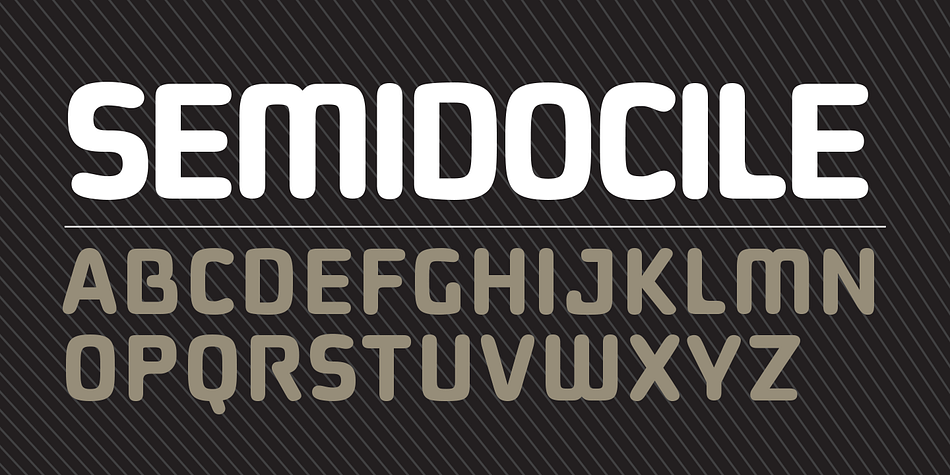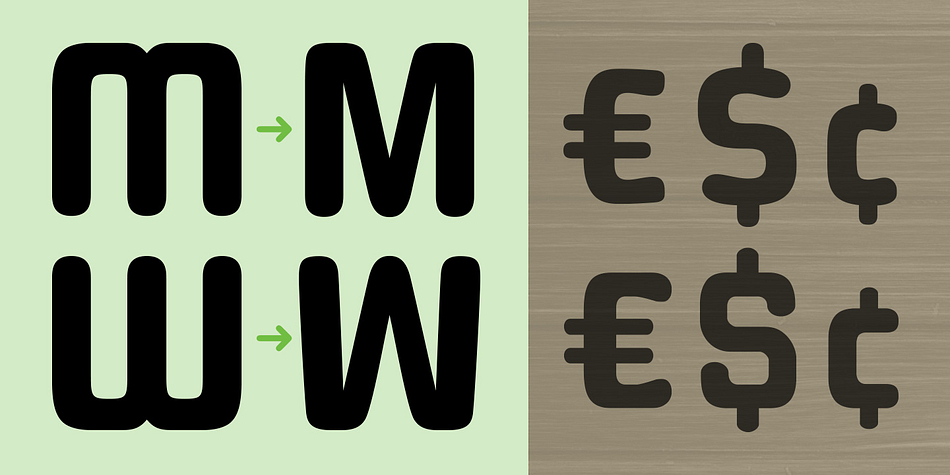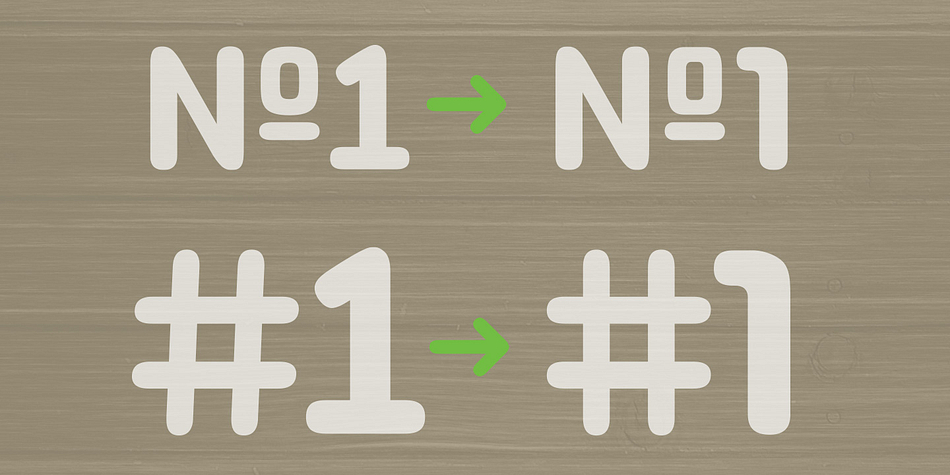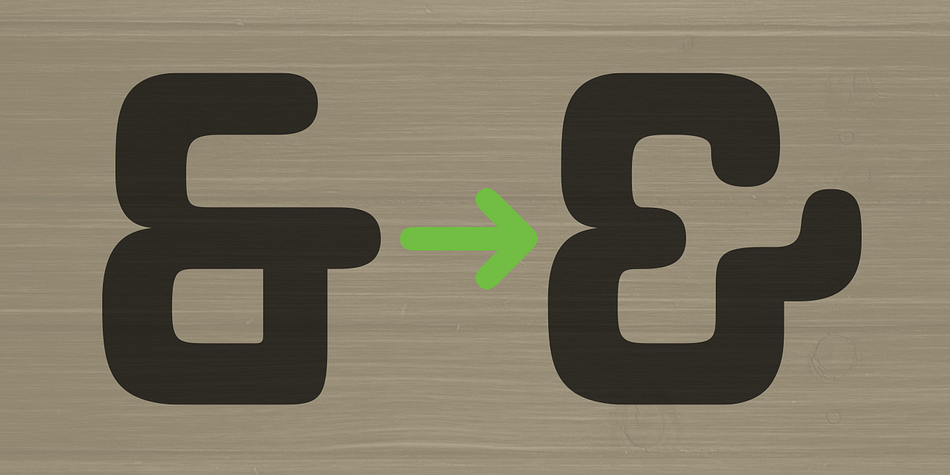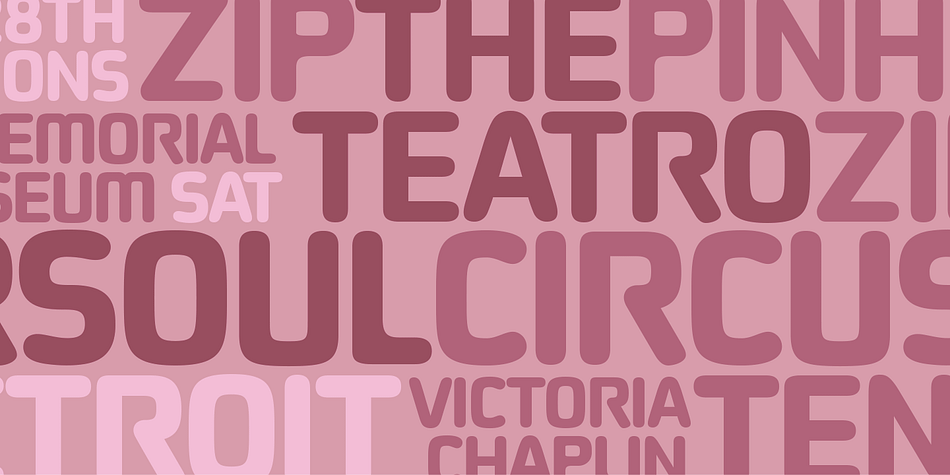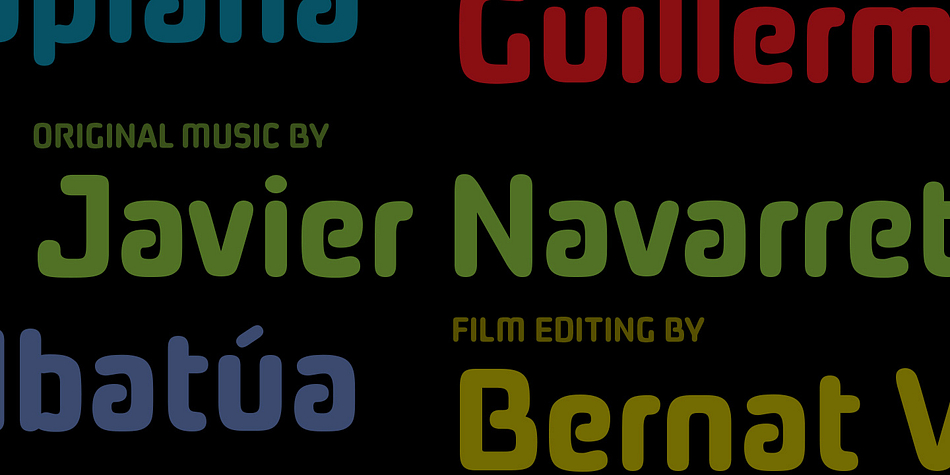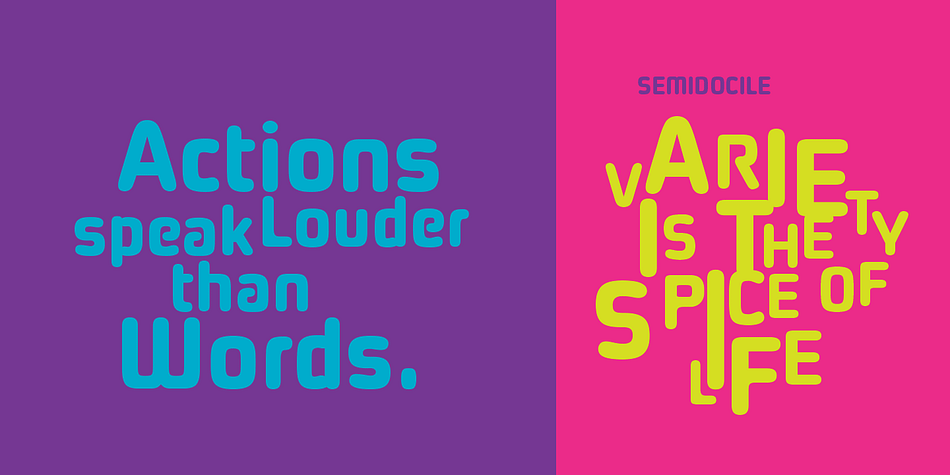
Designed by John Merrifield, Semidocile is a sans serif and display sans font published by Stiff Upper Glyph.
Typepface Design Studio Stiff Upper Glyph is happy to introduce Semidocile, designed by John Merrifield. This new font is very unique, modern, and it’s of impeccable quality. The letter-spacing is of exceptional quality, because it’s been kerned meticulously and makes use of very sophisticated kerning technology. It supports most Latin and Western European Languages, and users have a large number of assorted symbols to choose from. It features over 1400 glyphs. To learn more, visit http://www.stiffupperglyph.com.